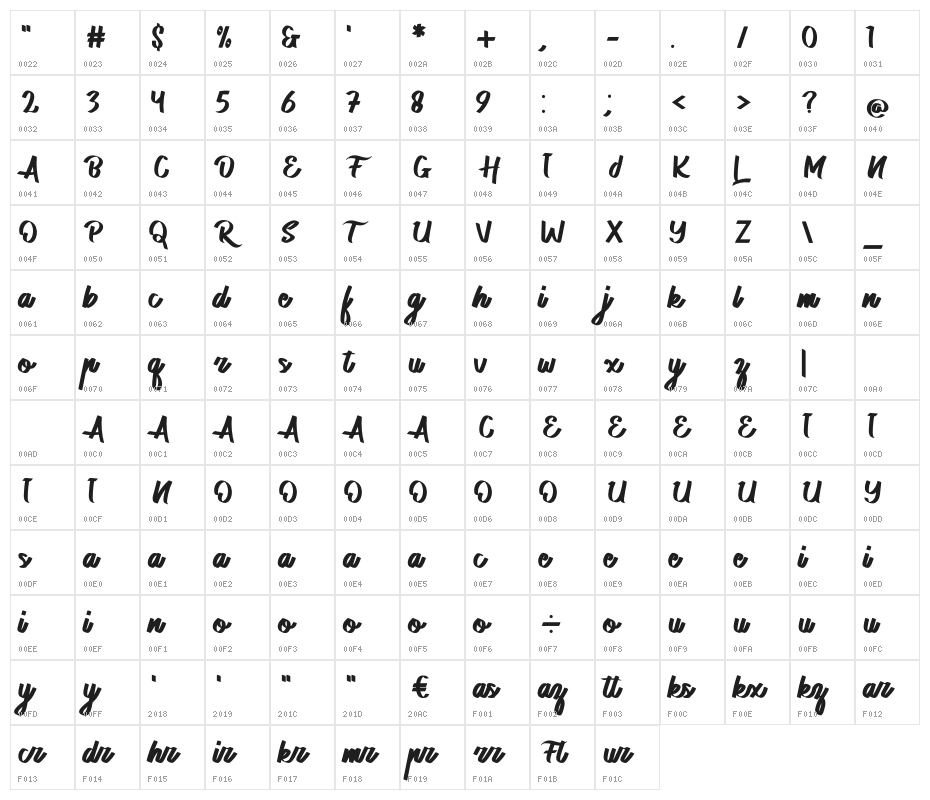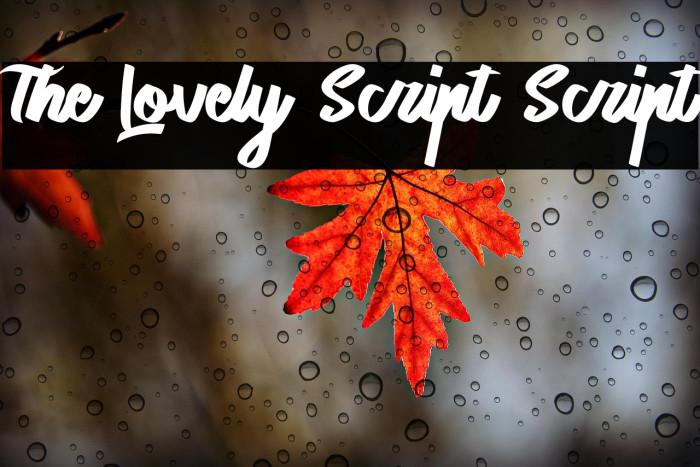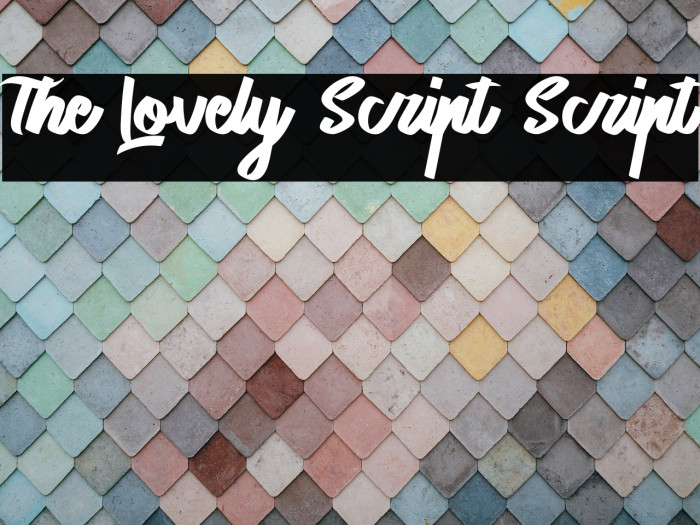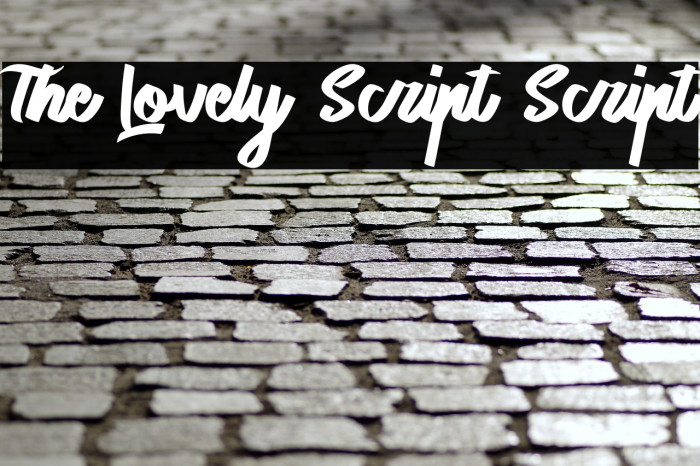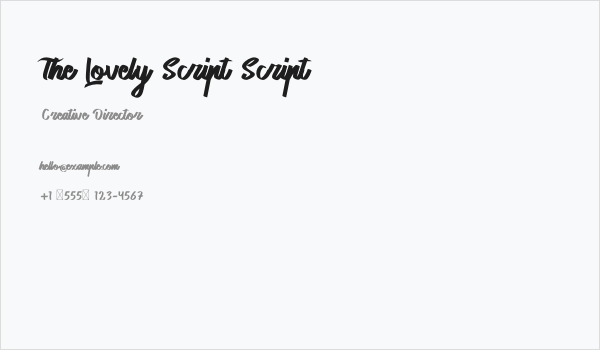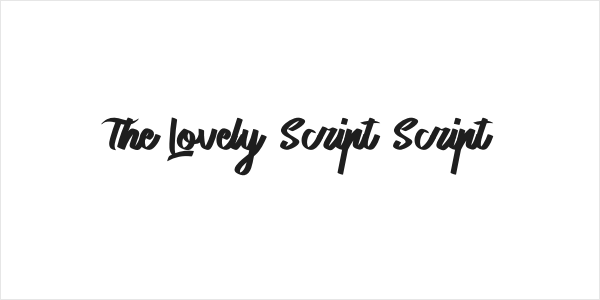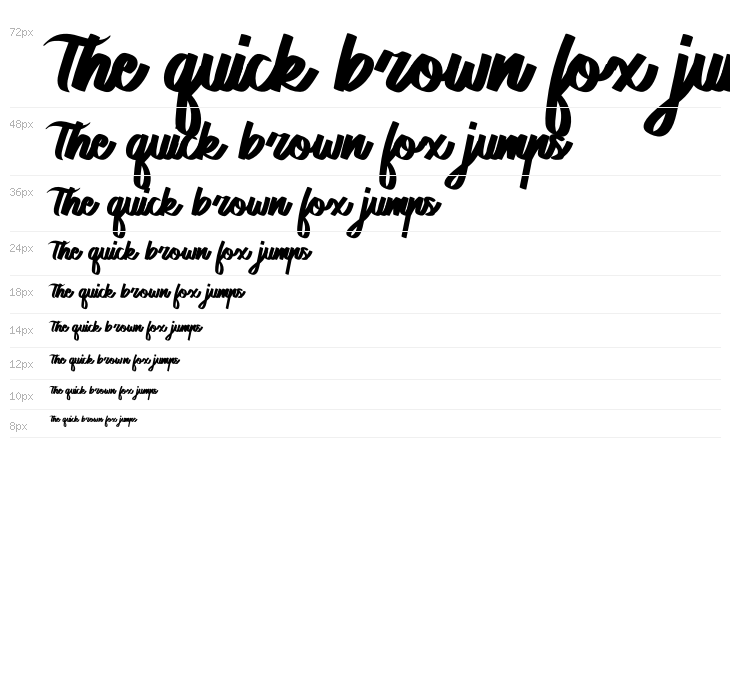
The Lovely Script Script Font
The Lovely Script Script Description
This font exudes a playful and energetic vibe, characterized by its bold, flowing script style. The uppercase letters are dynamic and slightly slanted, giving a sense of movement and spontaneity. The lowercase letters maintain this fluidity, with some letters featuring unique loops and curls that add to the font's charm. The numbers are consistent with the overall style, maintaining the same boldness and slight slant. Special characters are creatively designed, matching the font's lively aesthetic. This font is perfect for projects that require a touch of whimsy and creativity.
| Proposed Projects | Ideal for greeting cards, playful branding, social media graphics, and creative invitations. |